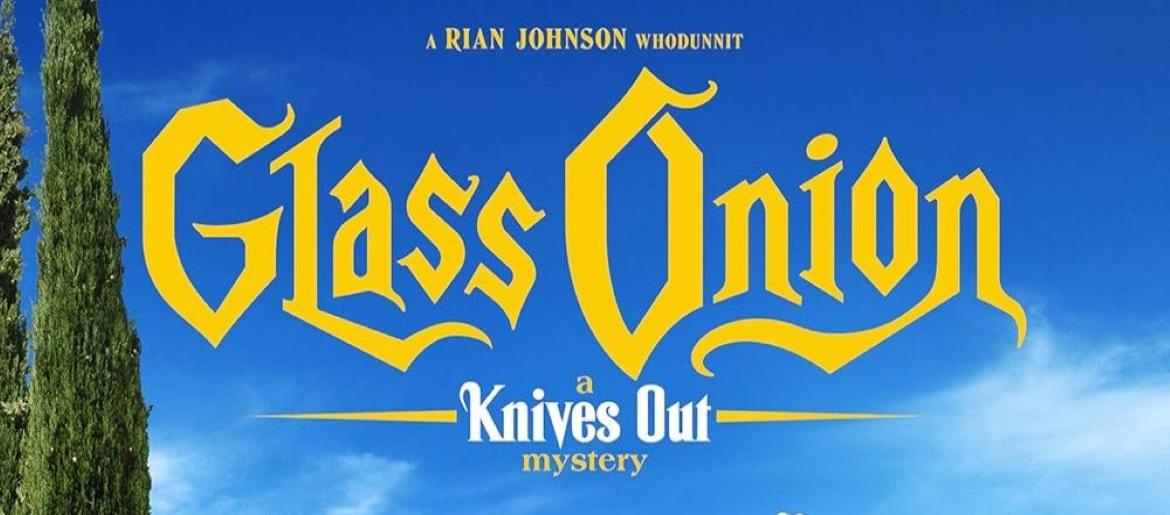
Glass Onion Font
What Font is Glass Onion?
The Glass Onion Font used in the film’s title logo is a custom-made typeface created by The Made Shop, perfectly reflecting the movie’s playful and intricate tone. The designers crafted the lettering to evoke the layered mystery and sharp wit that define the film. Its decorative curves and vintage flair align beautifully with the film’s whodunit atmosphere and luxurious setting.
Similarly, Knives Out—the predecessor to Glass Onion—featured its own custom typography also designed by The Made Shop, inspired by the lettering found on classic Agatha Christie paperback covers. Together, these title designs create a cohesive visual identity for the series, blending elegance with intrigue.
About Glass Onion: A Knives Out Mystery
Released in 2022, Glass Onion is a mystery-comedy film directed by Rian Johnson and starring Daniel Craig as the eccentric detective Benoit Blanc. The story follows a group of wealthy friends invited to a private Greek island for a murder-mystery game that quickly turns deadly. The stylish typography mirrors the film’s clever, layered storytelling and lavish visual style.